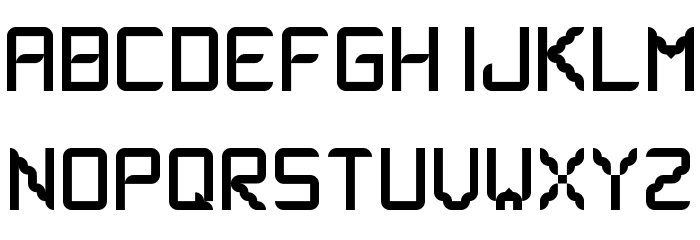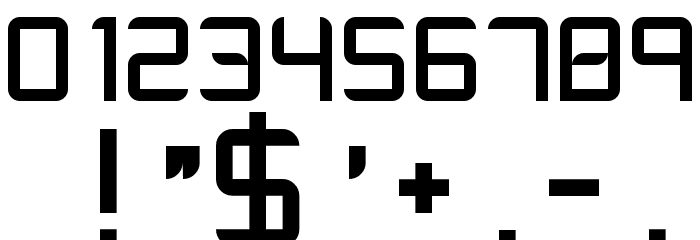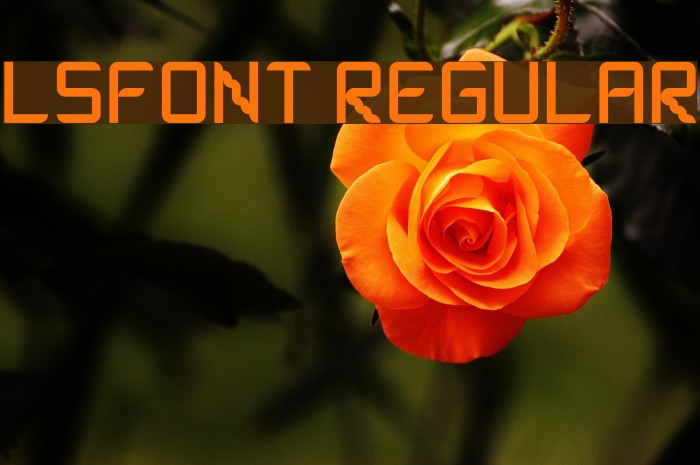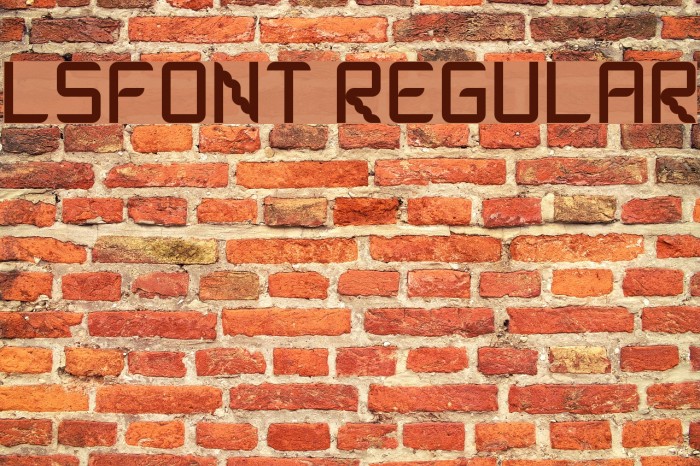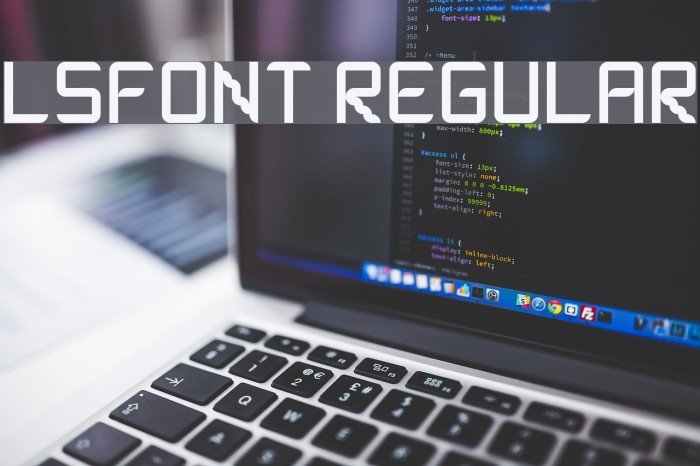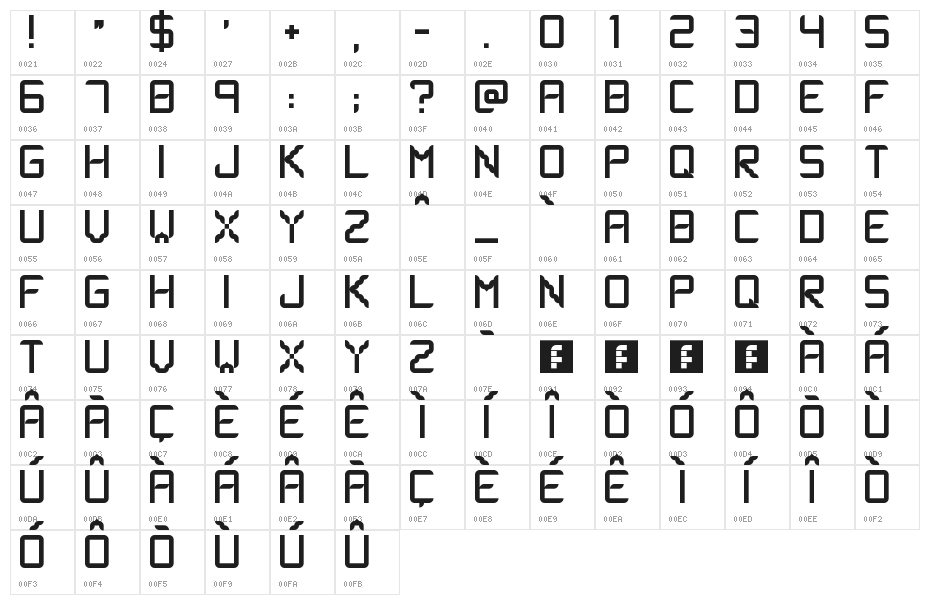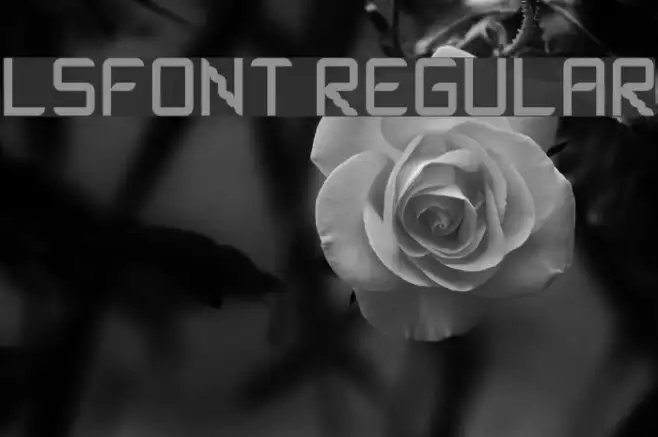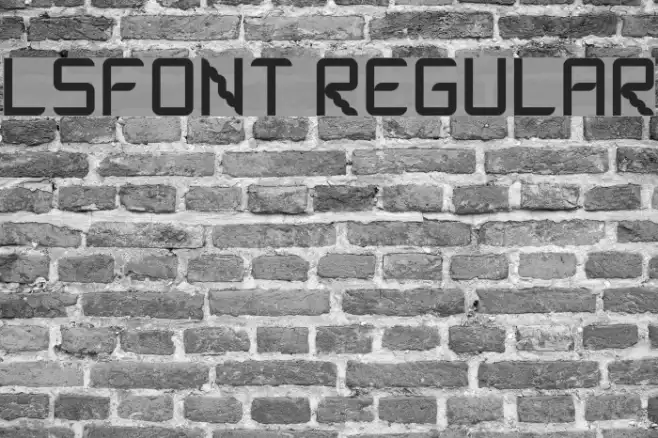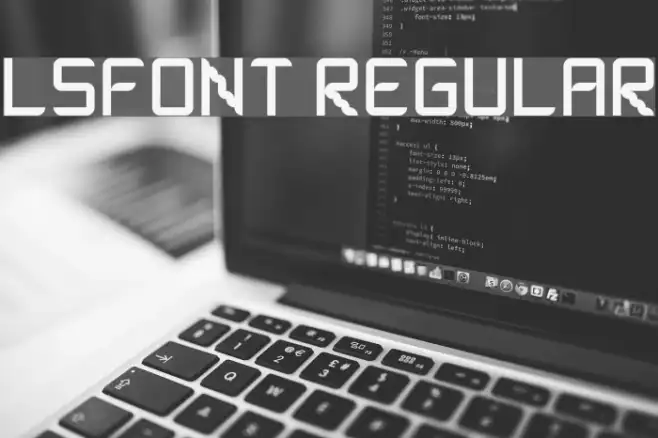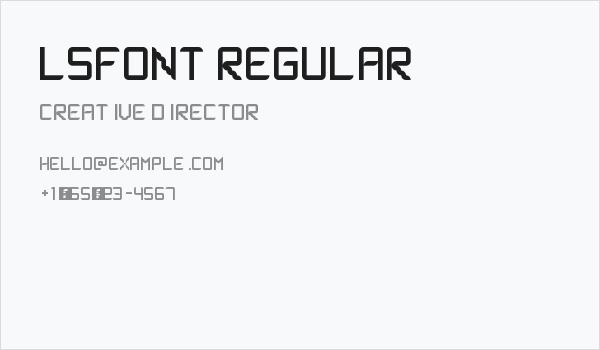
lsfont Regular Font
This font features a modern, geometric design with a unique twist. Each character is constructed with a consistent stroke width, creating a uniform appearance. The letters have a distinct, angular style with rounded corners, giving them a futuristic and tech-inspired look. The uppercase and lowercase letters maintain a similar structure, enhancing readability while adding a touch of creativity. The numbers are bold and clear, making them suitable for digital displays. Special characters are designed with the same geometric precision, ensuring they blend seamlessly with the rest of the font.
A modern, geometric font with angular, rounded characters and consistent stroke width.
- Proposed Projects: Ideal for tech branding, digital interfaces, video game design, and futuristic posters.
- Use Case: Logos, Digital displays, Tech interfaces